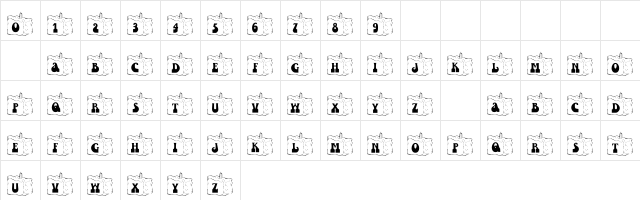
Complete 101! Slice of Cake Regular glyph index. Displaying only characters natively supported by 101! Slice of Cake Regular font.
101! Slice of Cake is a composed and adaptable typeface that performs quietly and consistently across a wide range of design contexts.